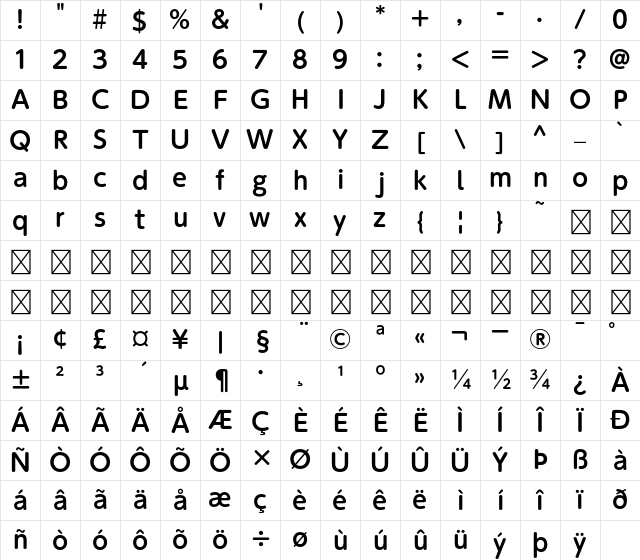
A-OTF UD Shin Maru Go Pro DB
Style: DB
Designer: Morisawa and Company Limited.
Design Context for A-OTF UD Shin Maru Go Pro
A-OTF UD Shin Maru Go Pro is a composed and adaptable typeface that performs quietly and consistently across a wide range of design contexts.